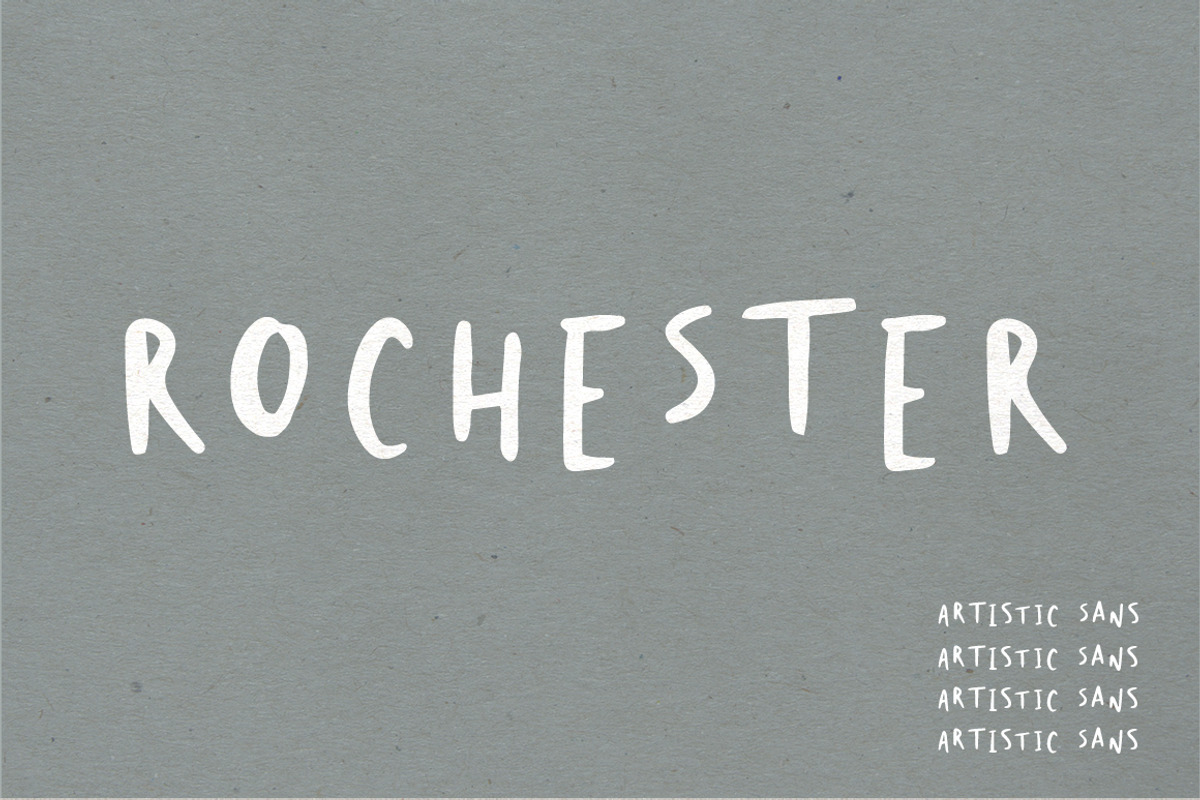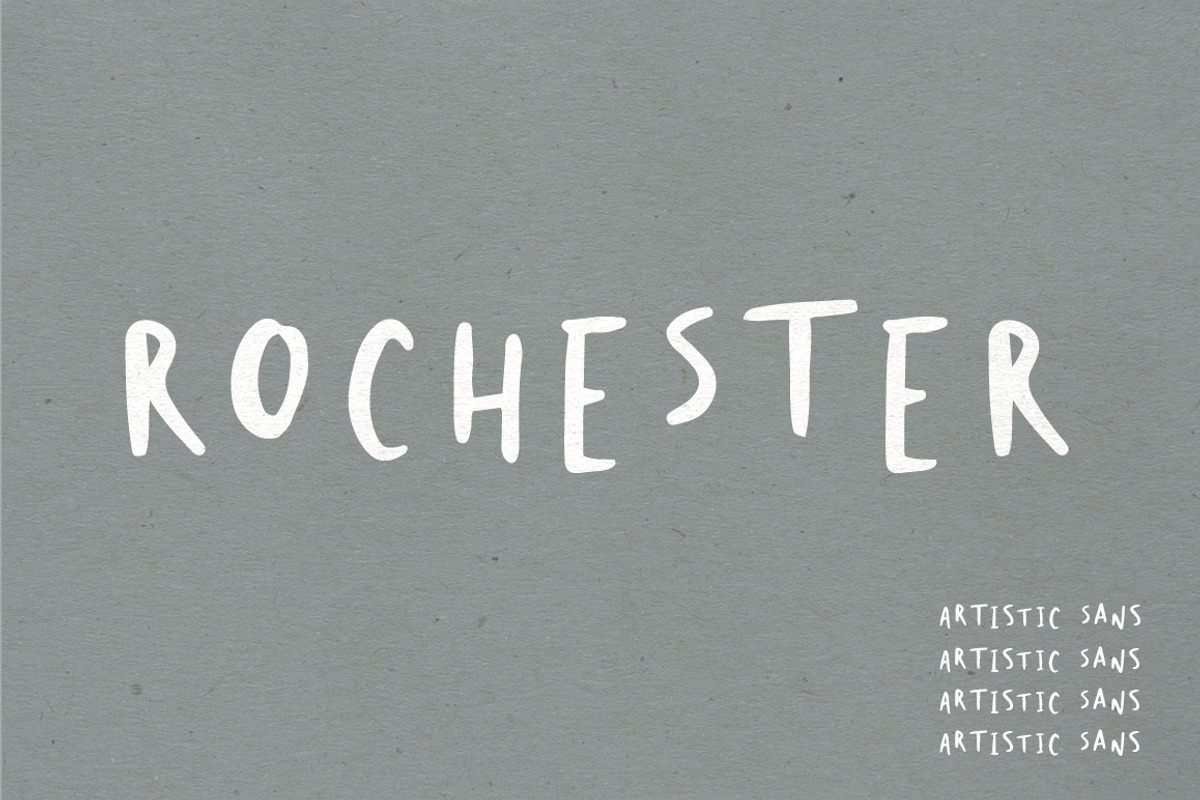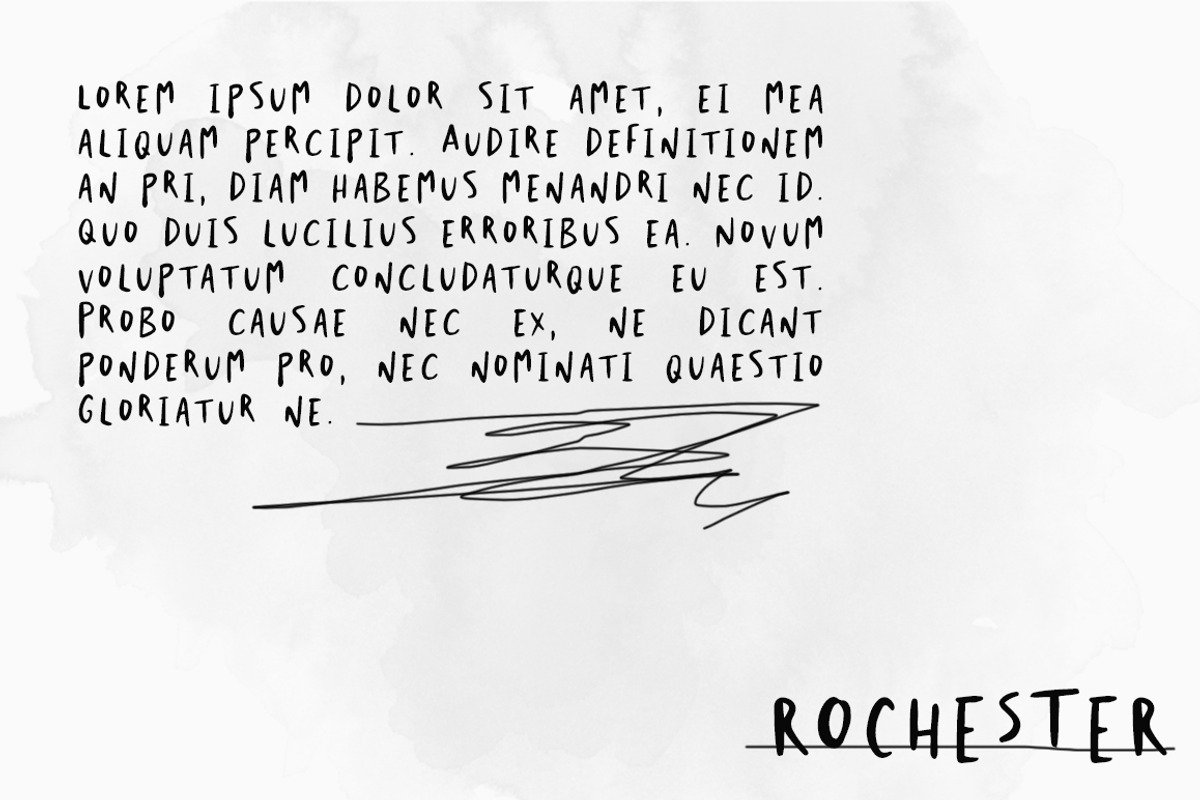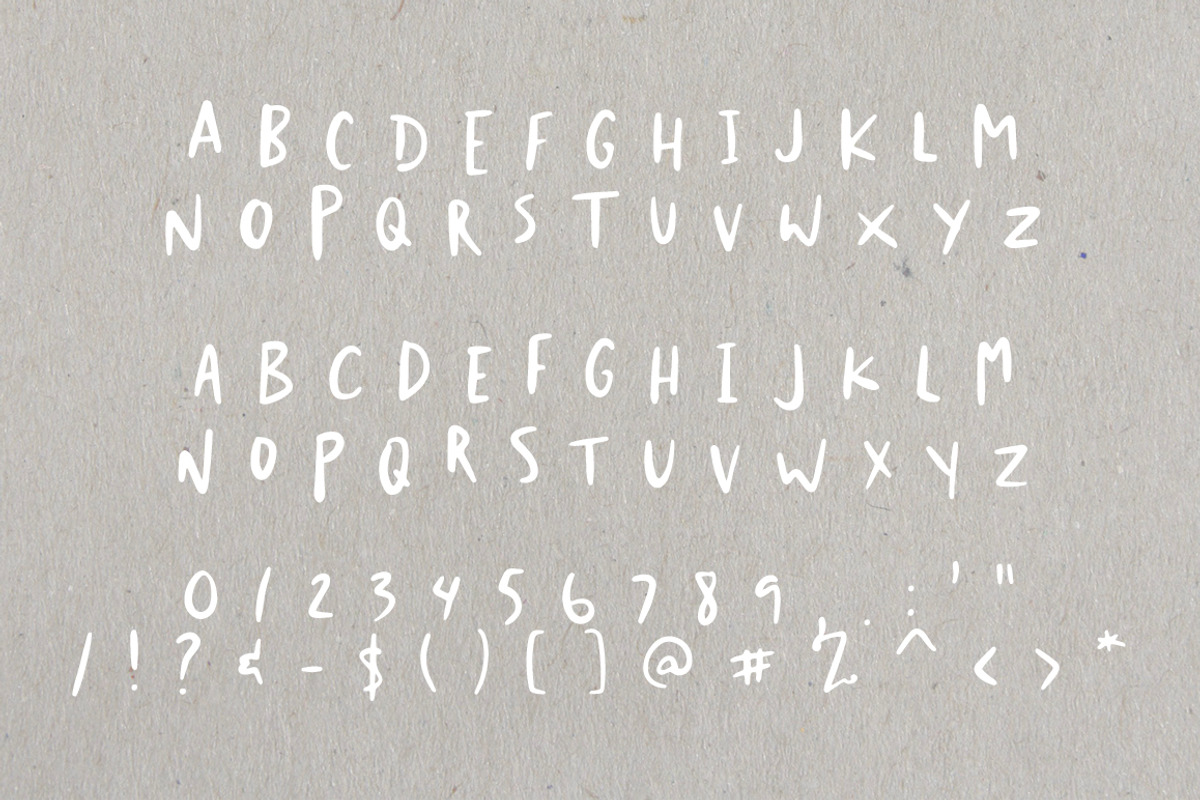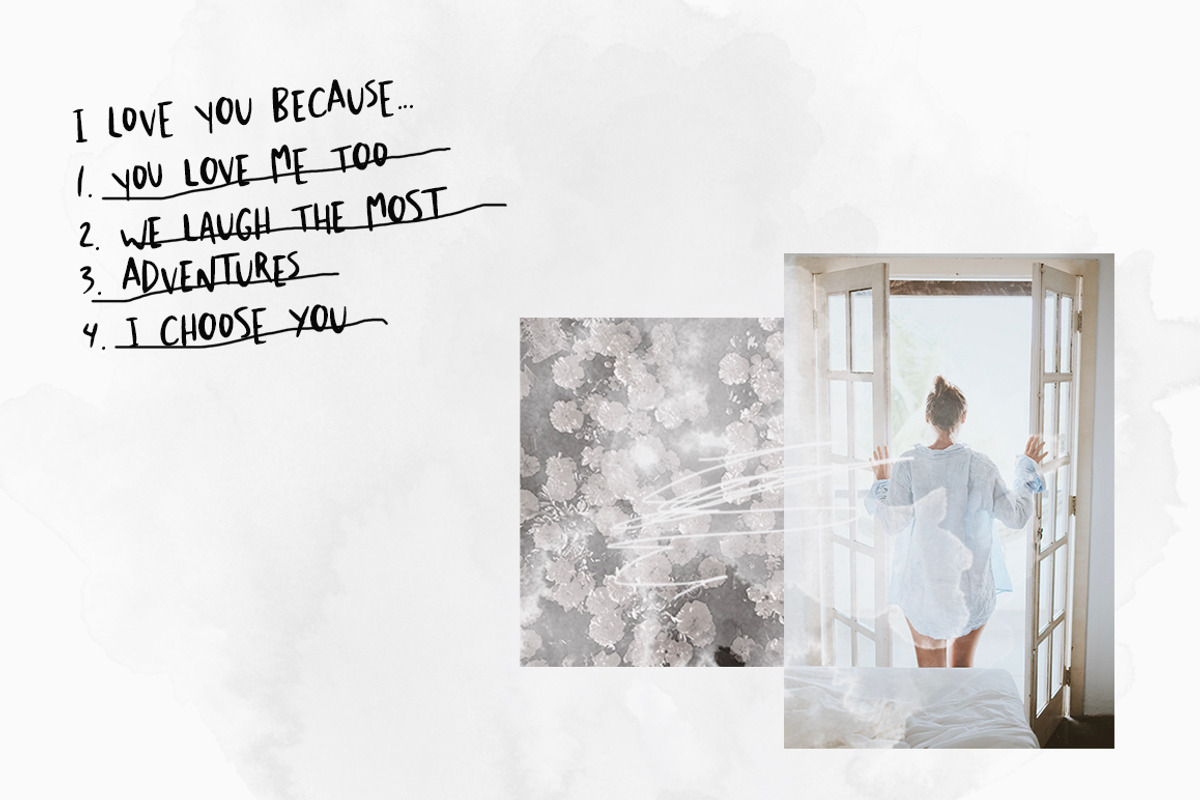
Rochester | An Abstract Font
Rochester | An Abstract Font by Jen Wagner Co is a font selected for branding, posters, packaging, typography.
- Includes uppercase letters with alternates via lowercase numbers + punctuation non-English characters Show More
- Rochester is an all caps sans serif with alternate letters available via the lowercase.
Rochester | An Abstract Font by Jen Wagner Co fits naturally into Branding, posters, packaging, typography.